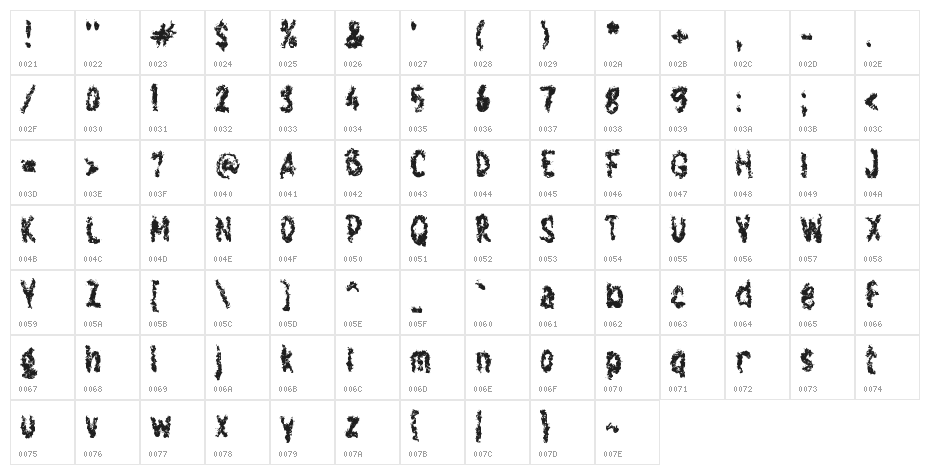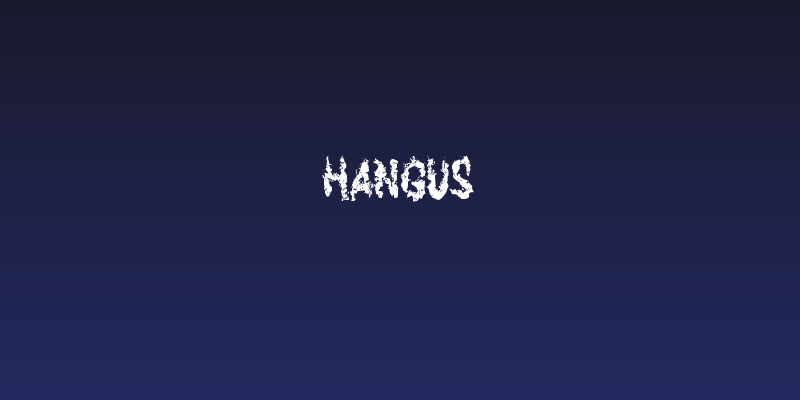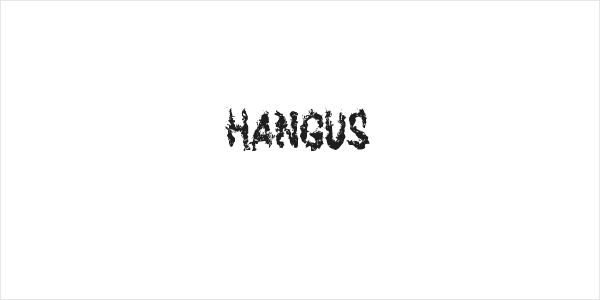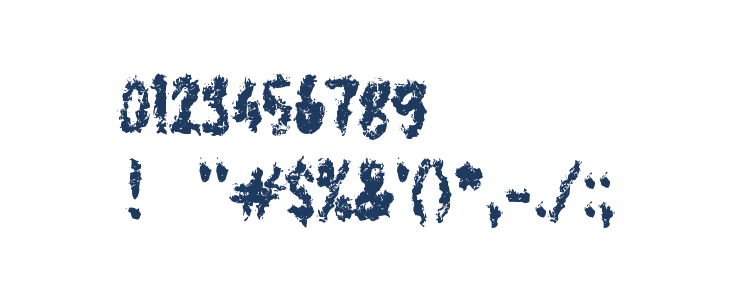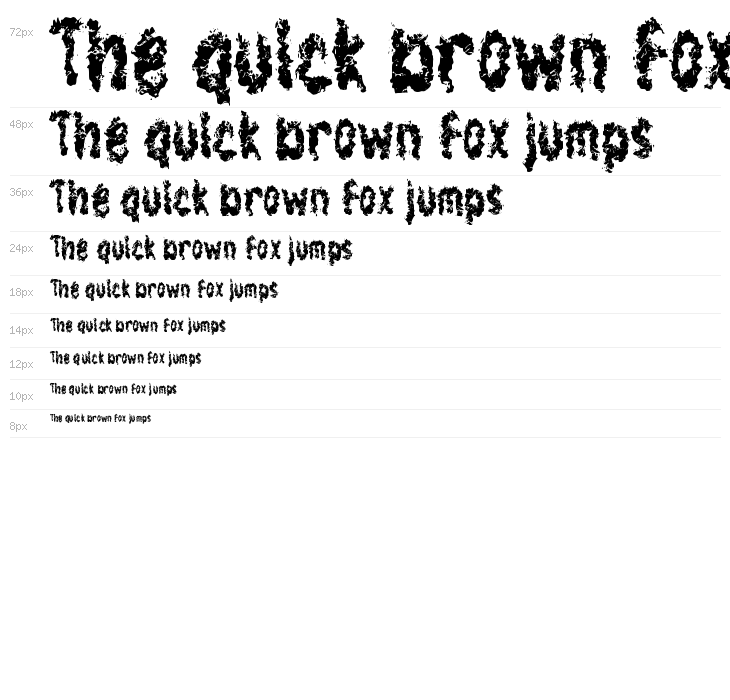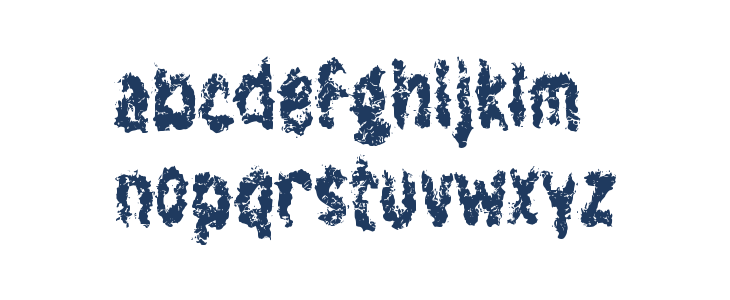
HANGUS Font
HANGUS Description
This font features a highly distressed and textured appearance, reminiscent of charred or burnt material. The characters are bold and irregular, with rough edges and a chaotic, organic feel. Each letter seems to have been eroded or weathered, giving it a unique, grunge-like aesthetic. The uppercase and lowercase letters maintain this rugged style, with numbers and special characters following suit. The overall look is striking and unconventional, making it ideal for designs that require a raw, edgy impact.
| Proposed Projects | Ideal for album covers, posters, horror-themed designs, or any project needing a gritty, intense visual impact. |